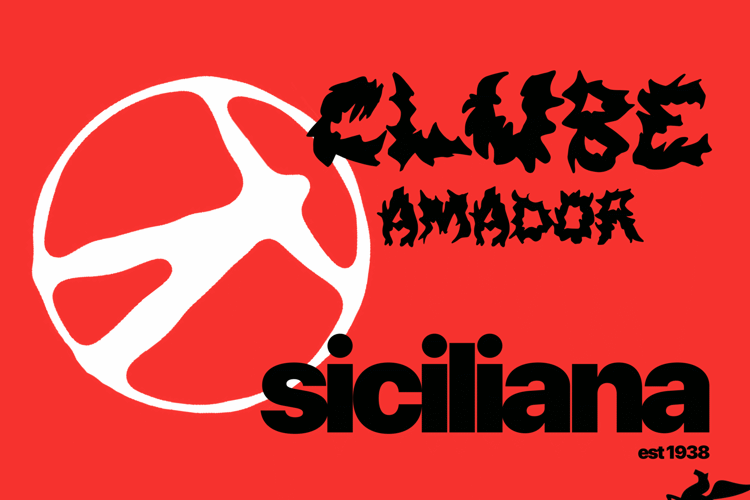
[FREE VERSION] FT Fleshrift – Brutal Metal Display Font
FT Fleshrift is a raw, high-impact metal display font designed to bring a visceral aesthetic to your creative work. With its jagged, organic, and aggressive letterforms, this typeface captures the intense, gritty spirit of underground metal culture. As seen in A.jpg, it is the perfect tool for designs that demand danger, chaos, and uncompromising strength.
Whether you are designing album art, concert posters, or edgy streetwear, FT Fleshrift provides the ultimate visual weapon to set your project apart.
Uppercase characters
Essential numerals and punctuation